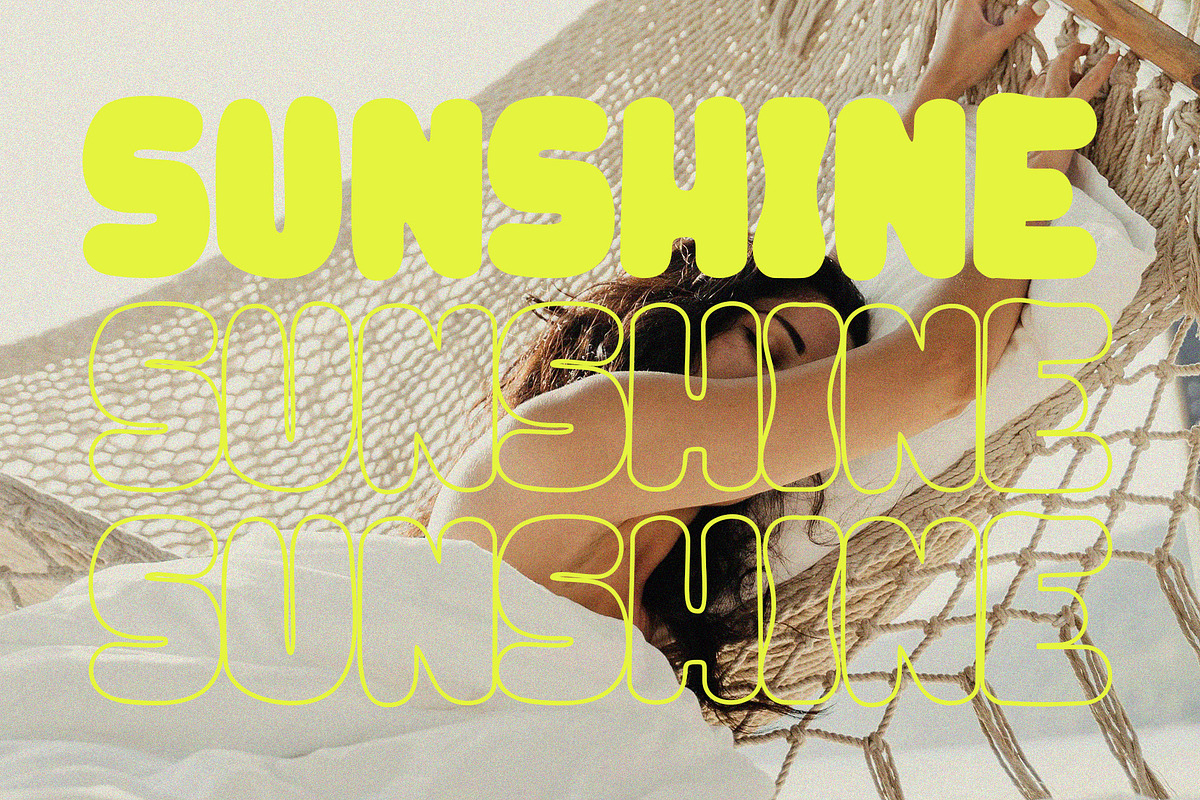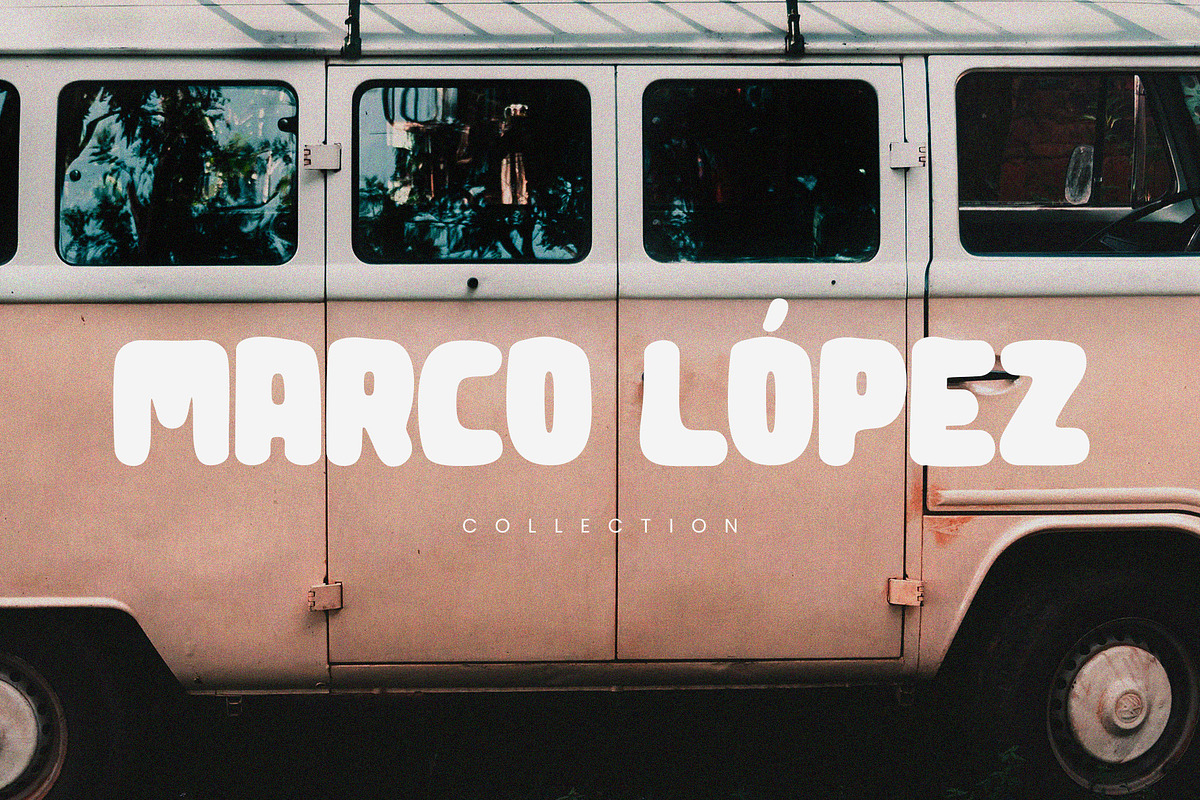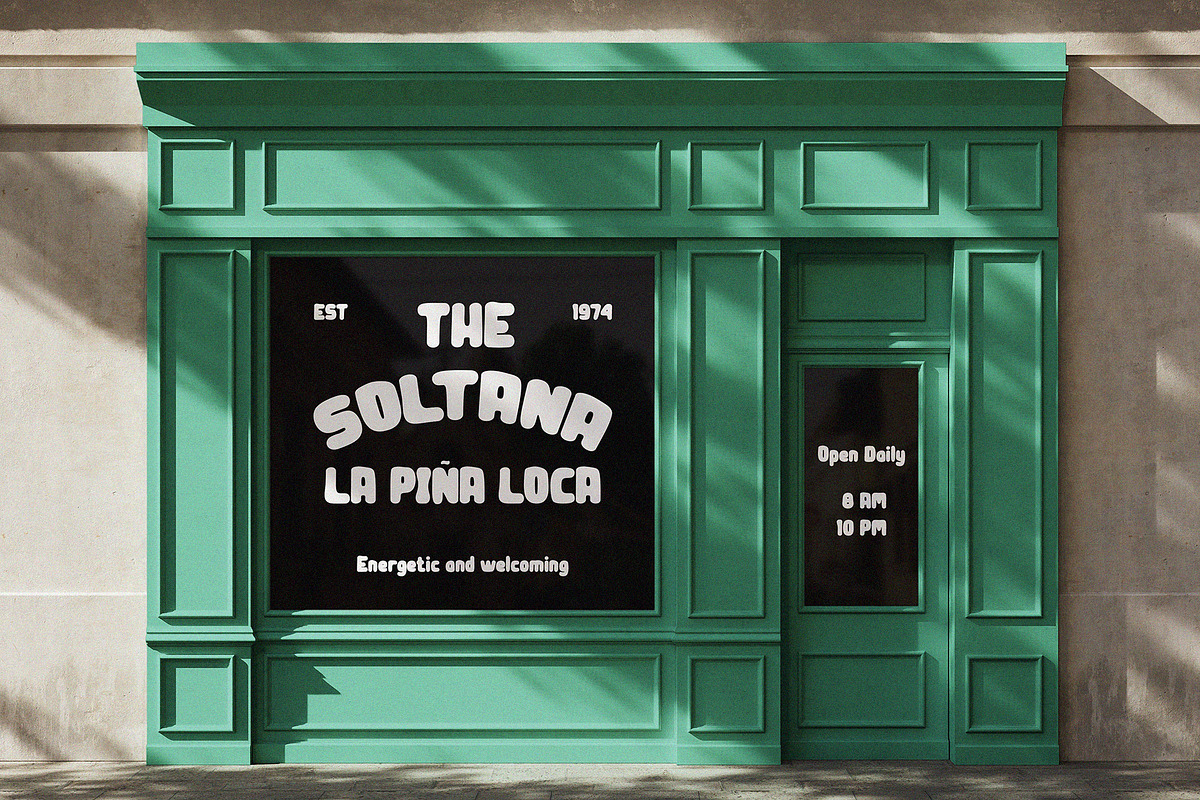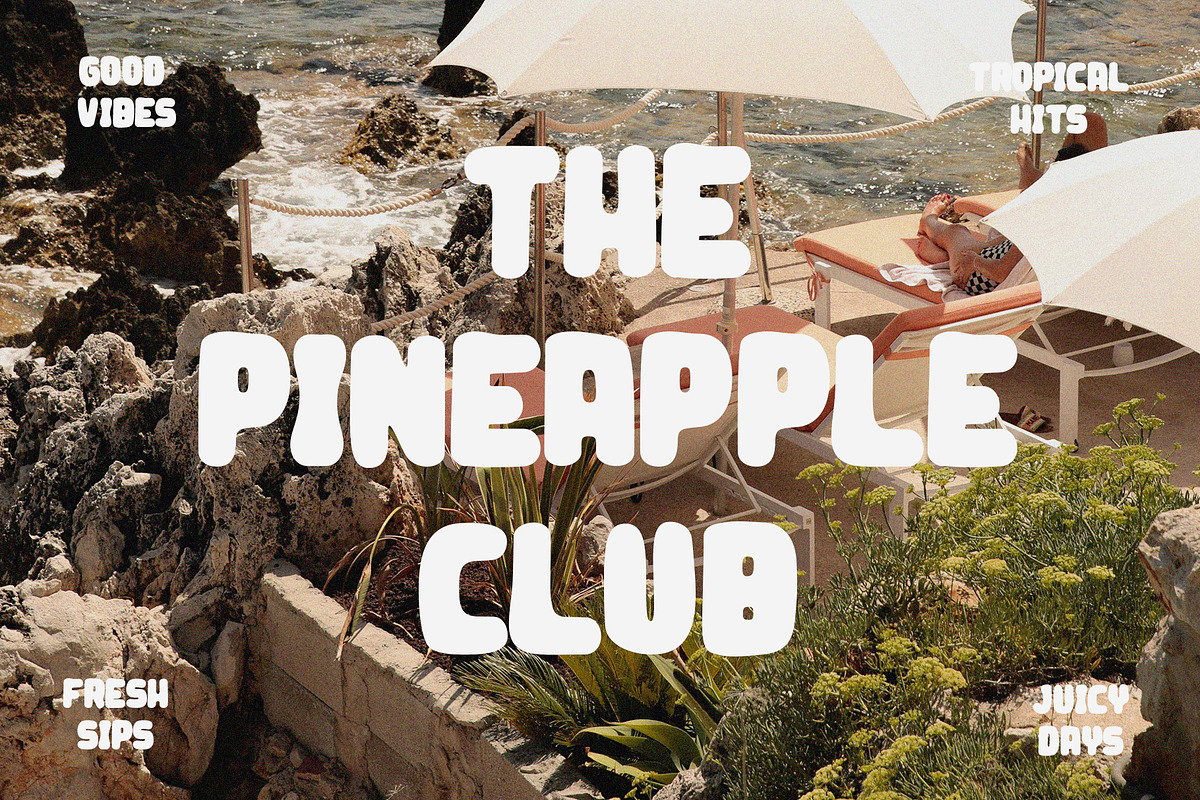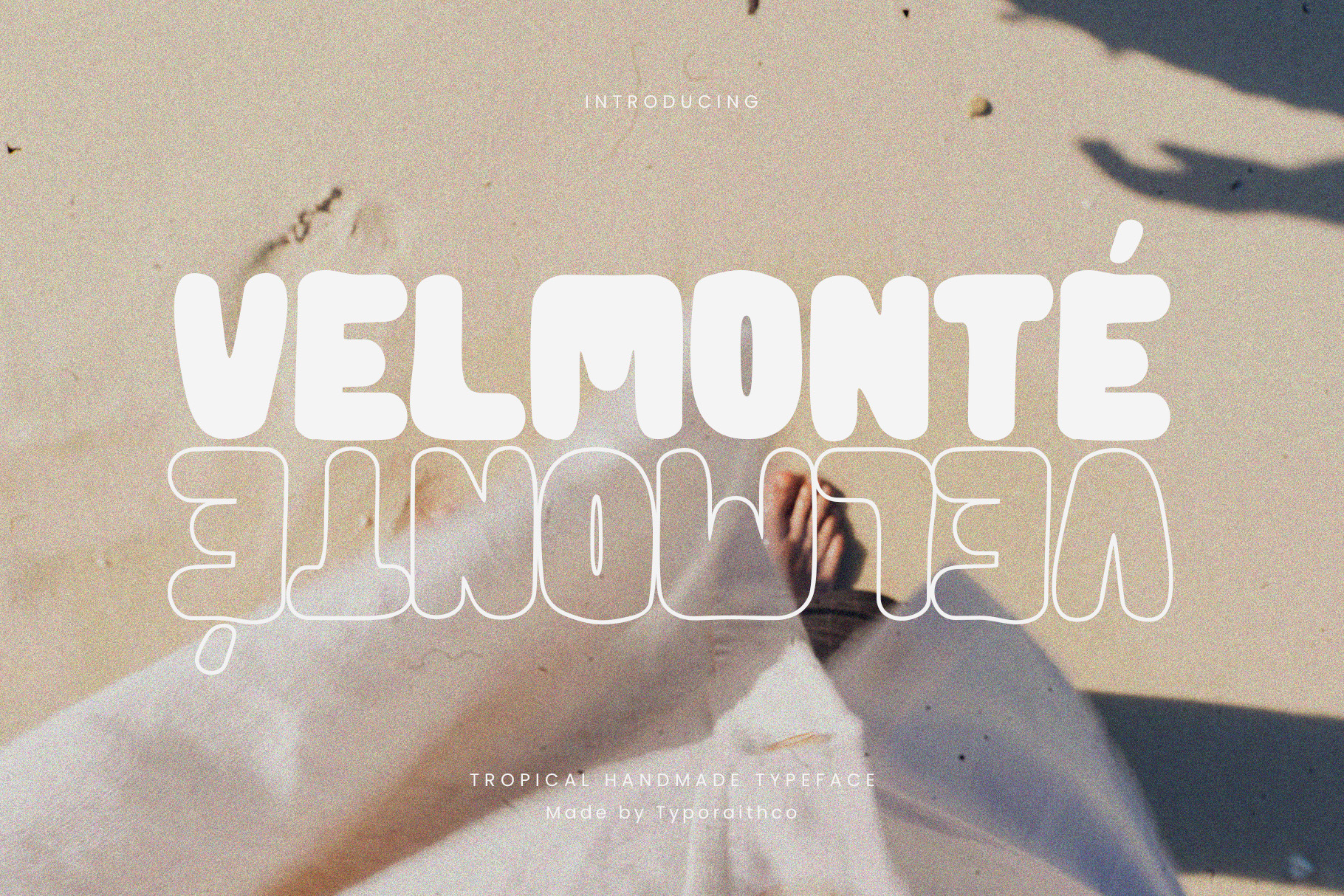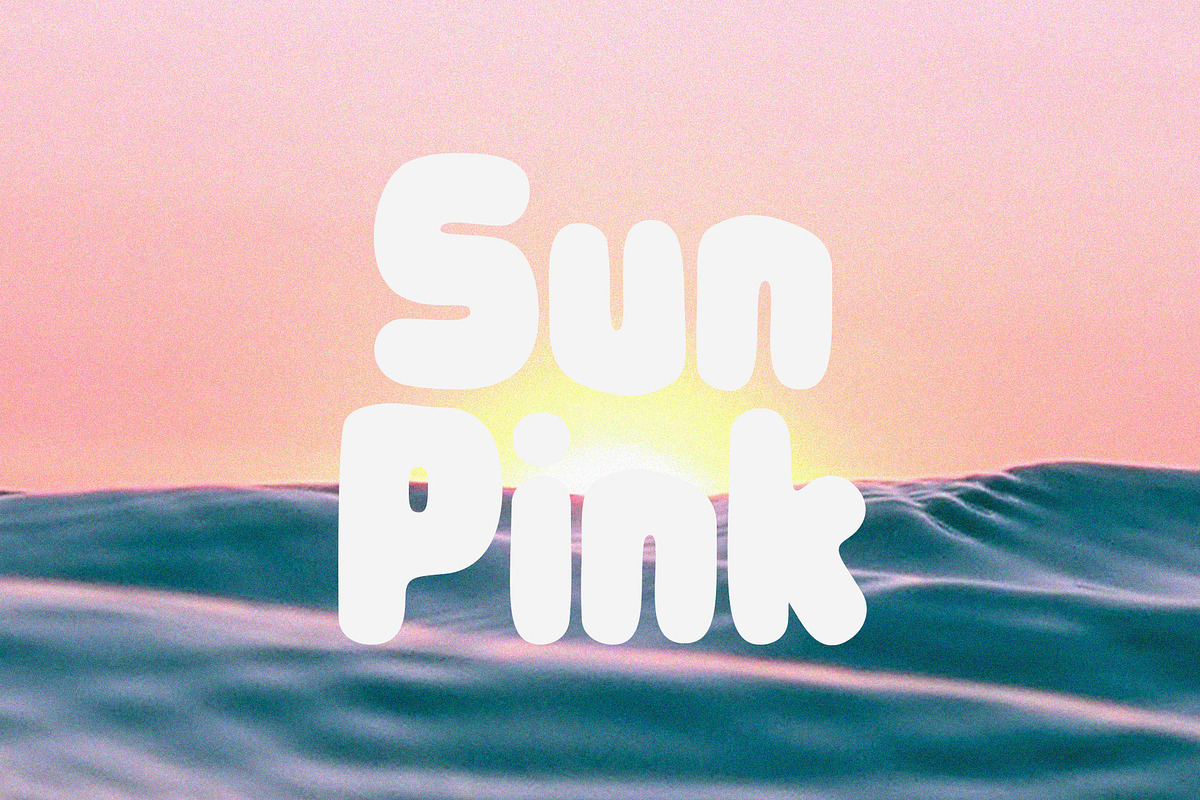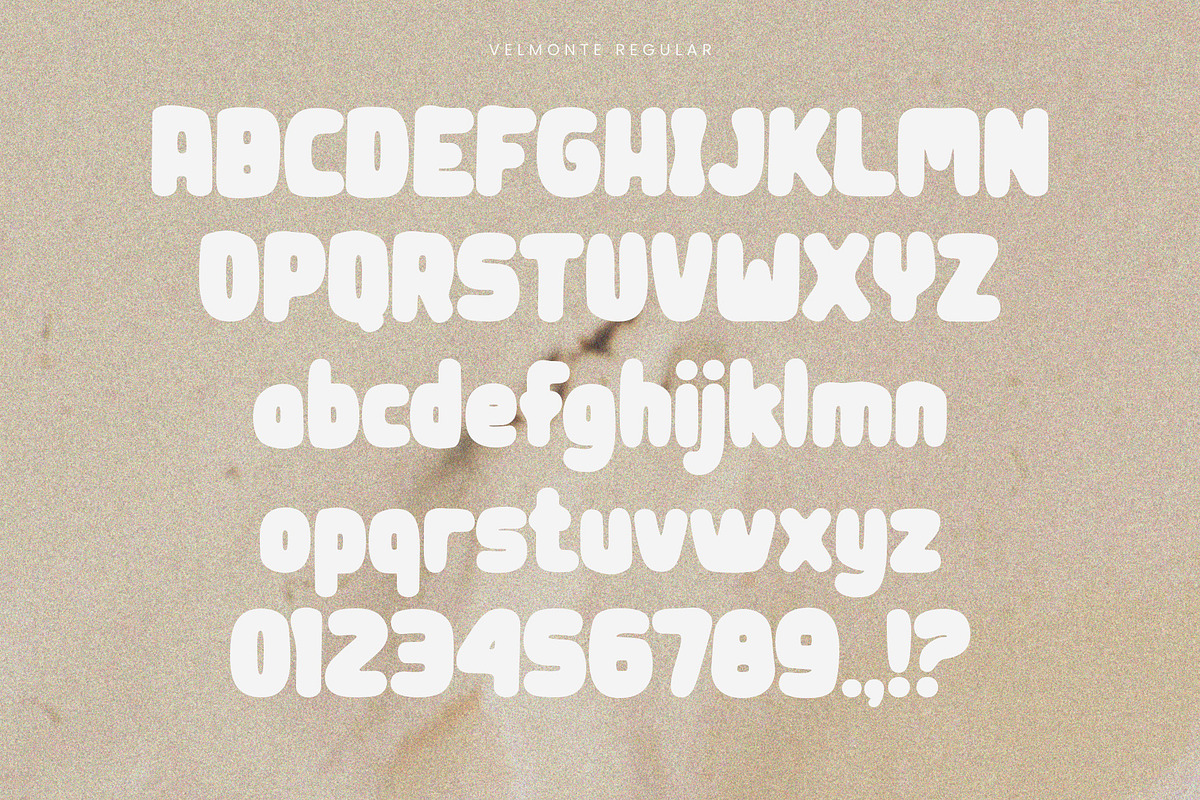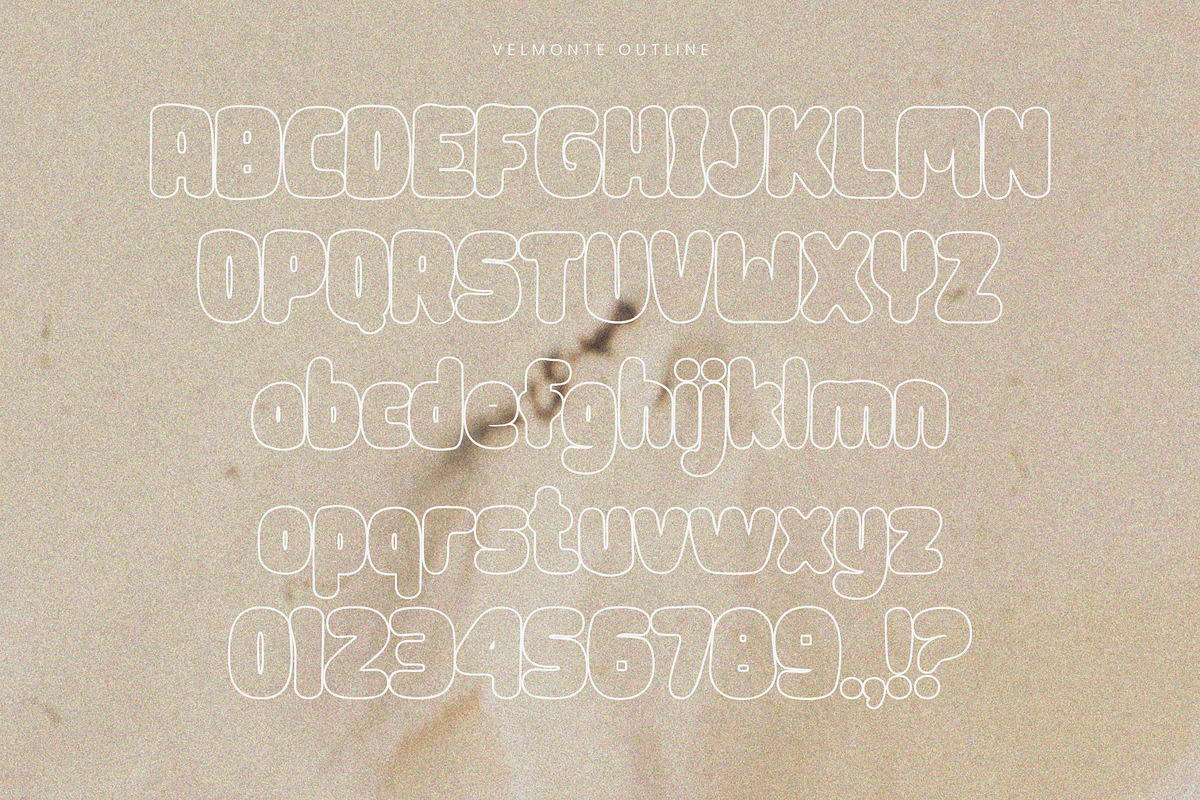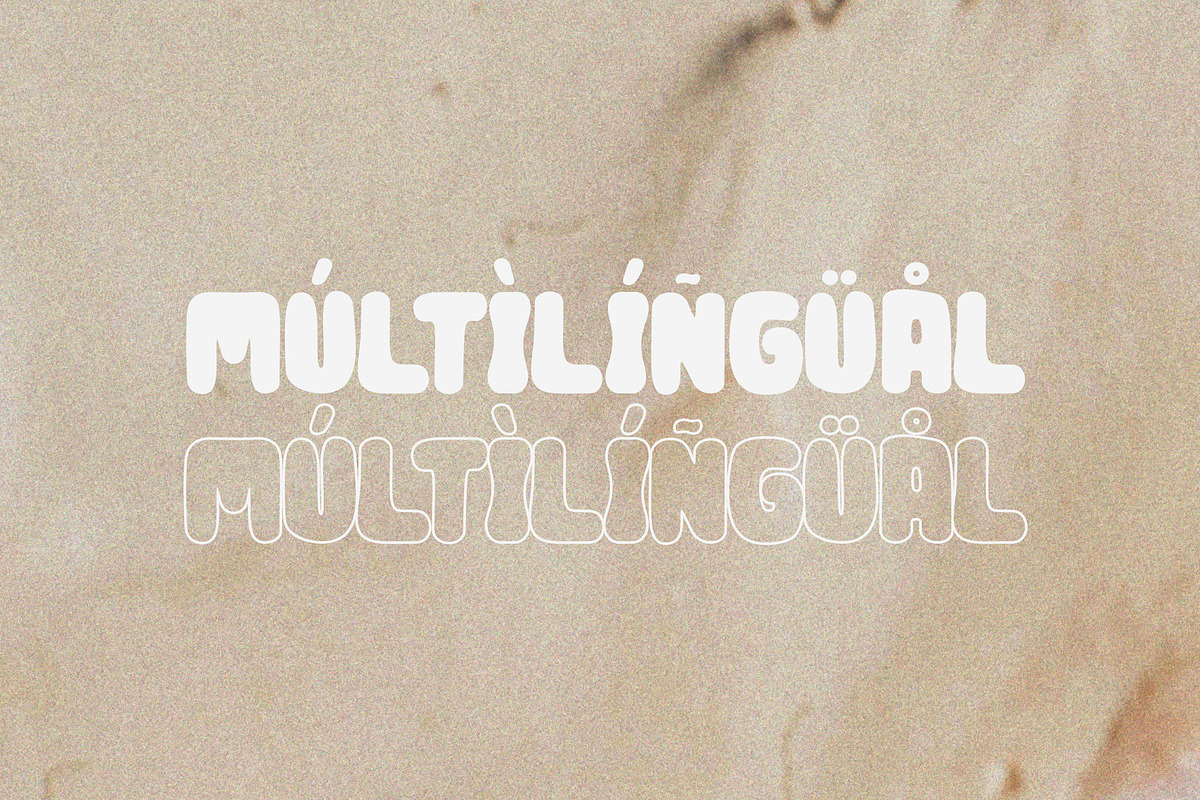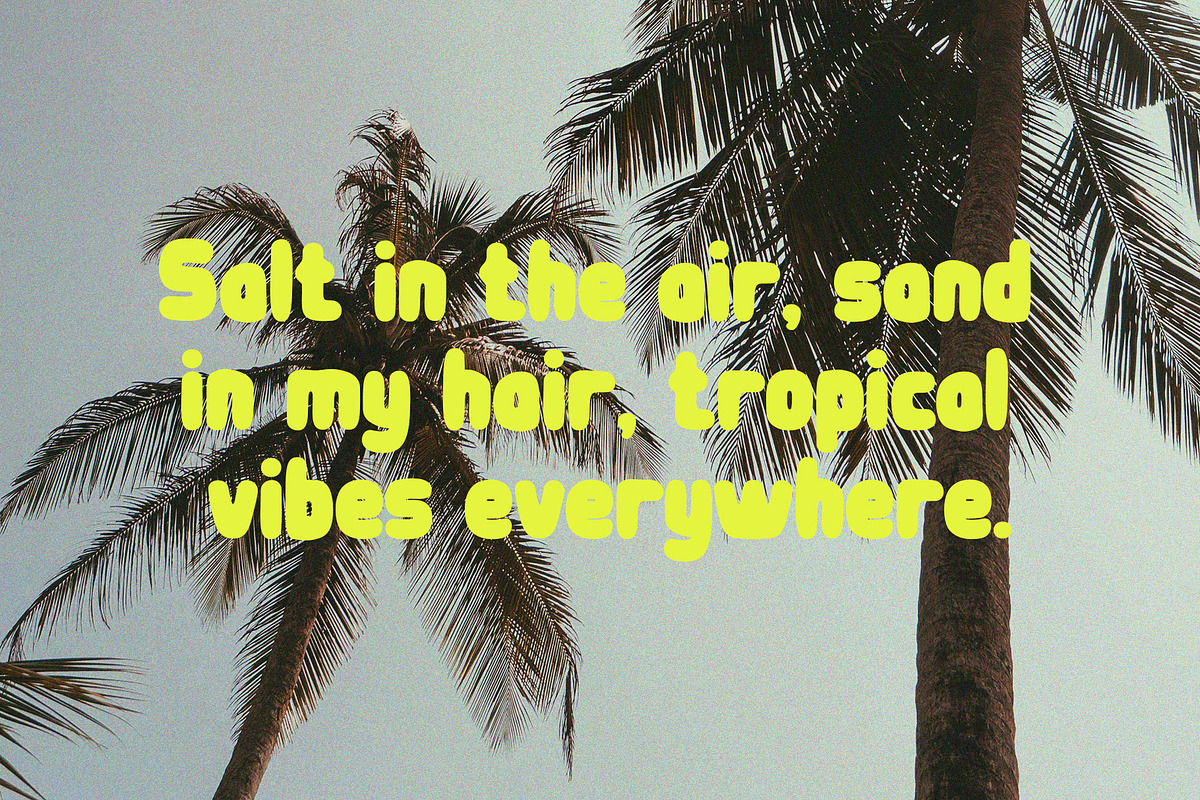
Velmonte | Bold Tropical Typeface
Velmonté is a fun and expressive tropical handmade display typeface, crafted to bring a laid-back beach vibe to your creative projects. With its rounded, soft, and friendly letterforms, Velmonté is perfect for branding, packaging, holiday posters, social media content, and any design that needs a natural, playful touch.
This typeface includes a unique outline version that pairs perfectly with the solid version, allowing for versatile and eye-catching typography combinations.
All uppercase characters
Includes Solid & Outline styles
Great for tropical, summer, beach, and handmade-themed designs